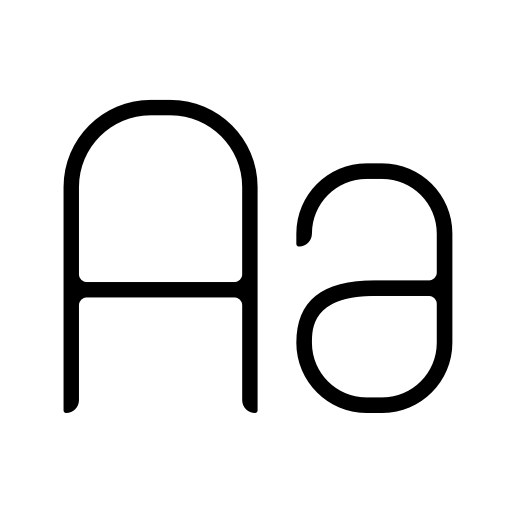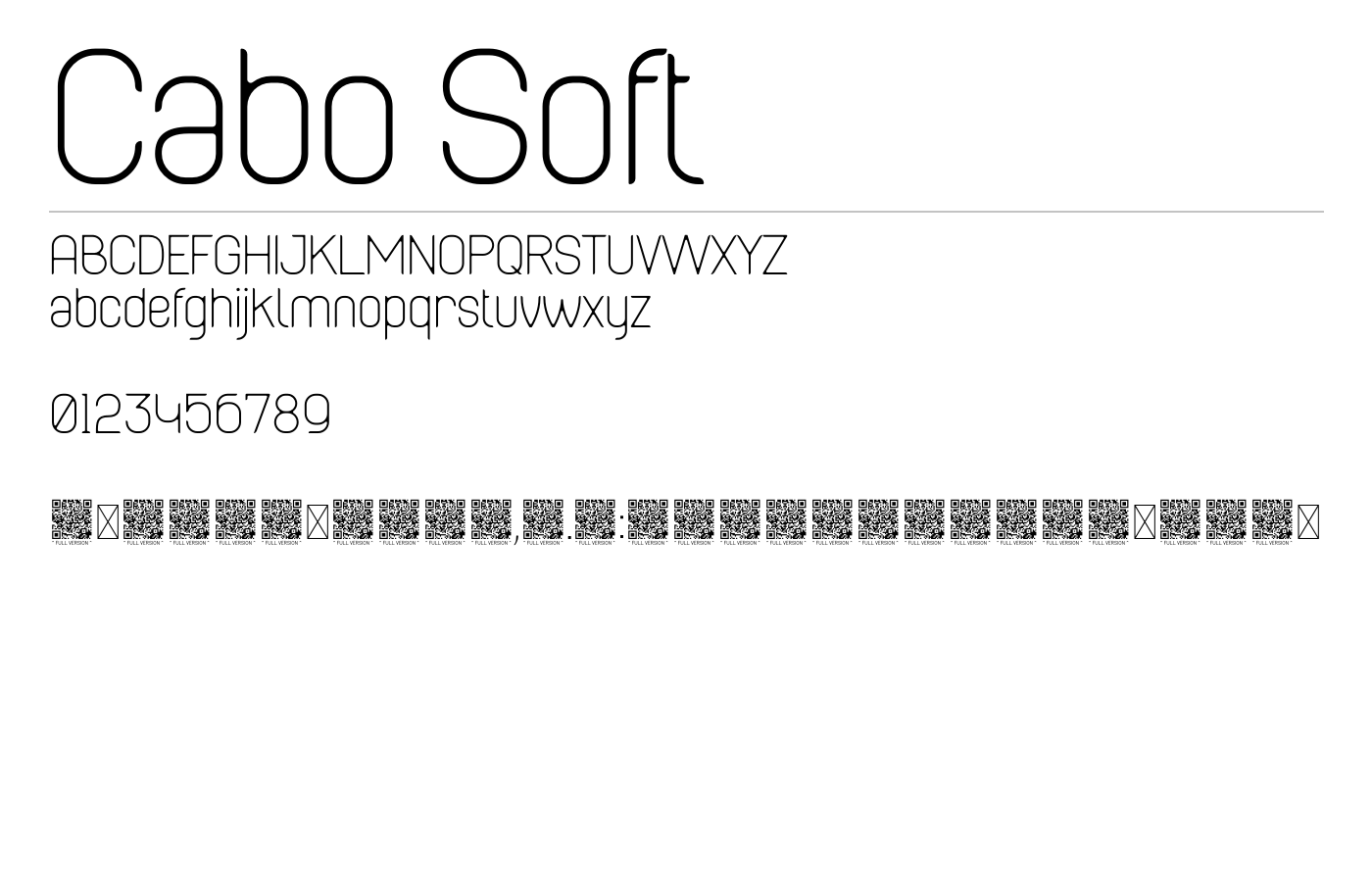
Cabo Soft is a sleek and modern sans serif font featuring a light weight and narrow width, giving it a clean and airy appearance. Its smooth, rounded edges and simple, geometric letterforms create a friendly yet professional vibe, making it ideal for contemporary branding, tech, and editorial design where clarity and approachability are key. This font works especially well for headlines and logos that require a fresh, minimalist aesthetic with a touch of softness.
Cabo Soft Font
About Cabo Soft Font